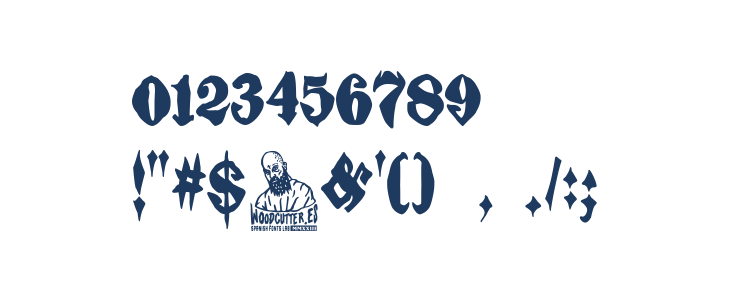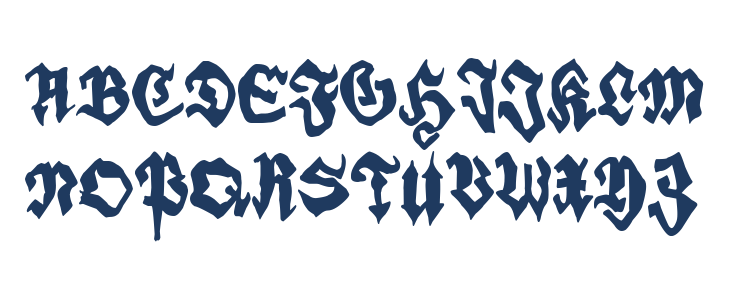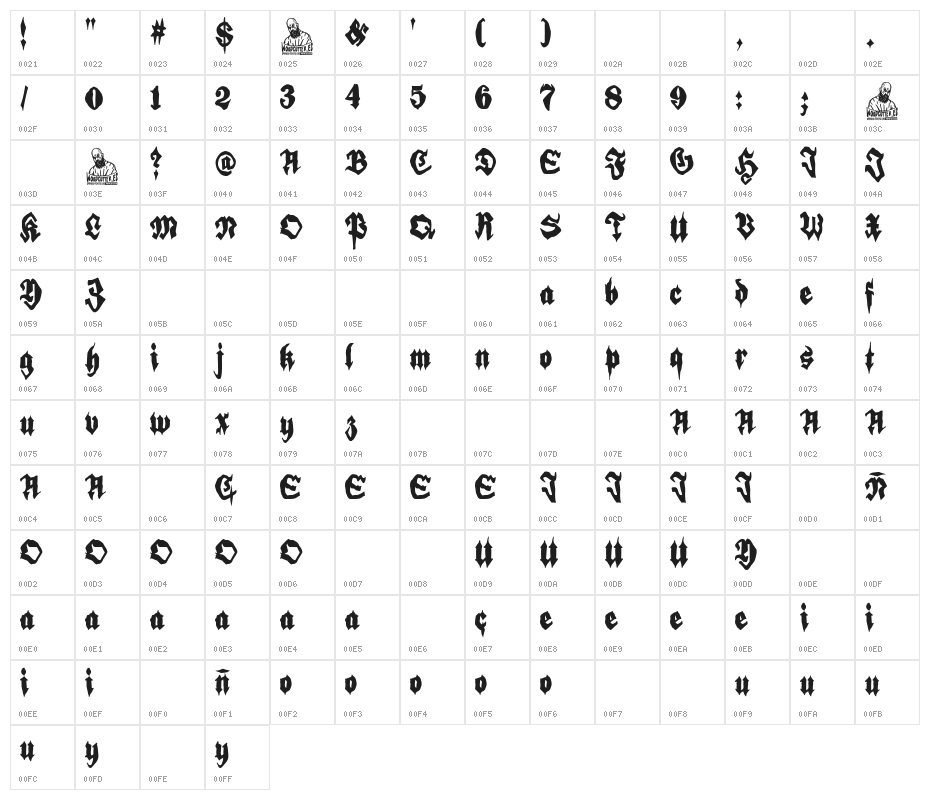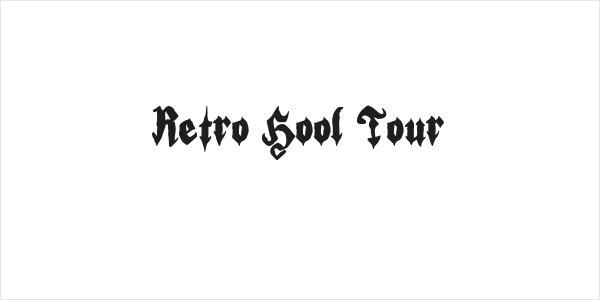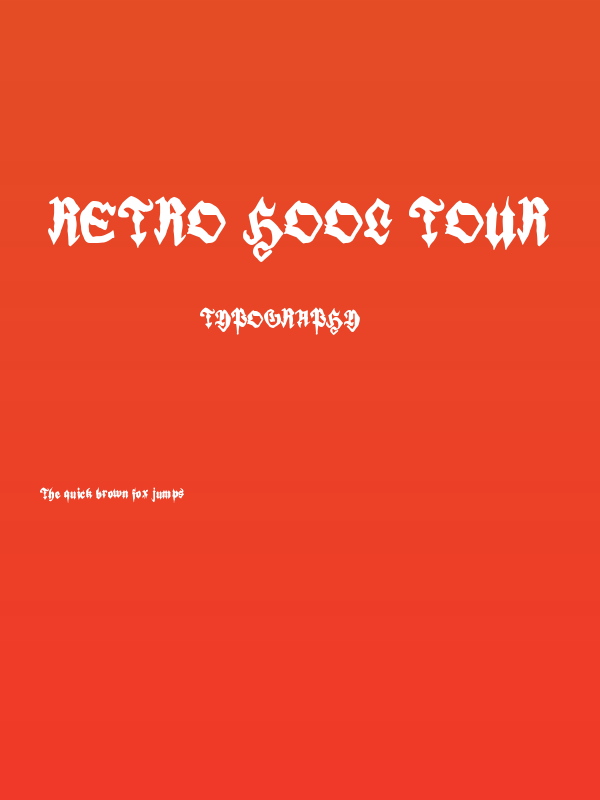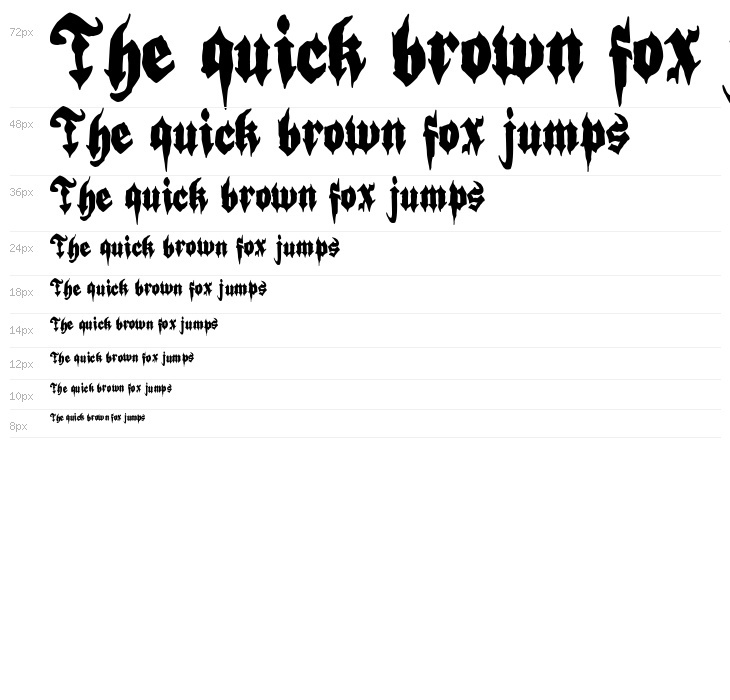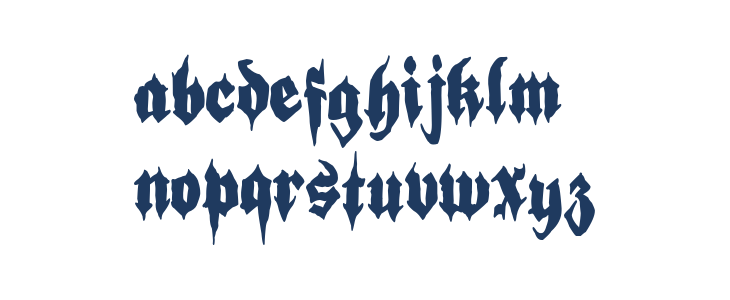
Retro Hool Tour Font
Retro Hool Tour Description
A highly stylized, angular typeface with sharp, pointed edges and dramatic strokes reminiscent of traditional blackletter or gothic calligraphy. The characters are bold and ornate, with high contrast between thick and thin lines, and decorative flourishes on many letters.
| Overall Style | Decorative, Vintage, Gothic |
| Use Case | Logos, Headlines, Posters, Decorative text |
| Proposed Projects | Posters, band logos, tattoo designs, event flyers, vintage-themed branding, gothic or medieval-inspired projects. |